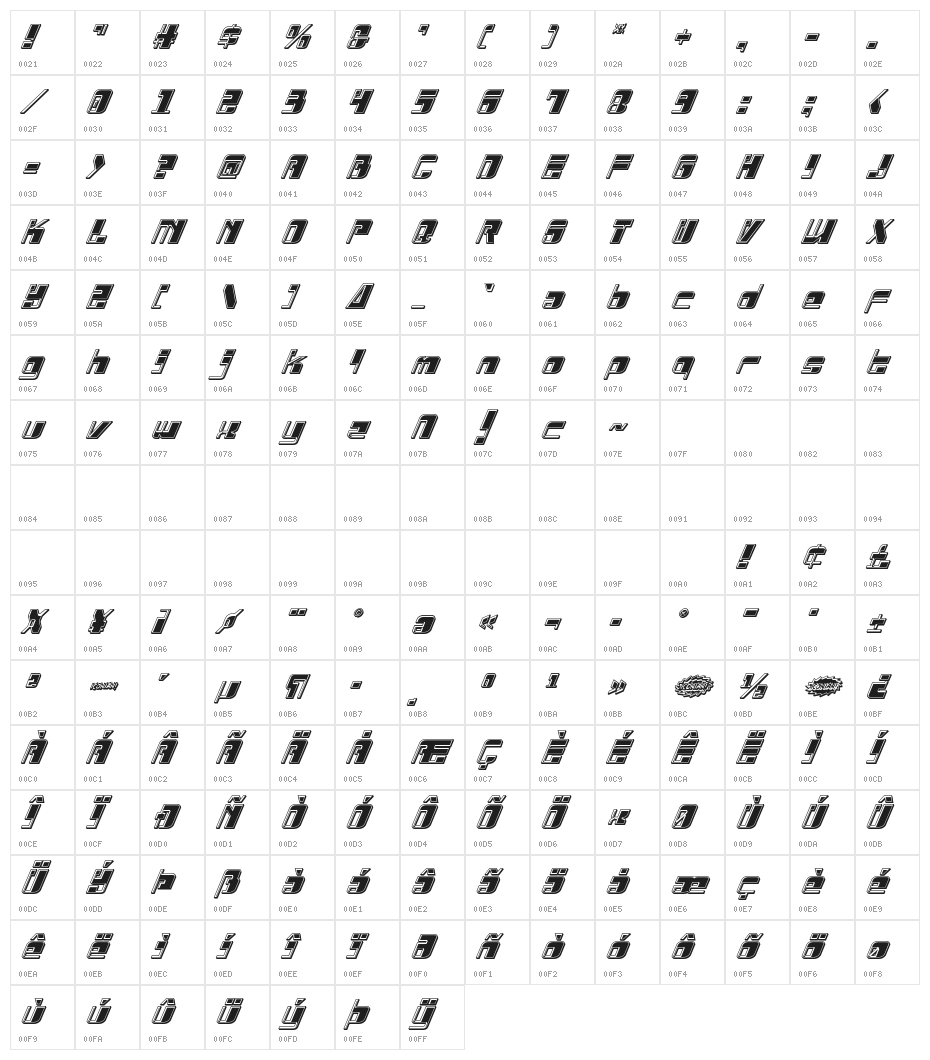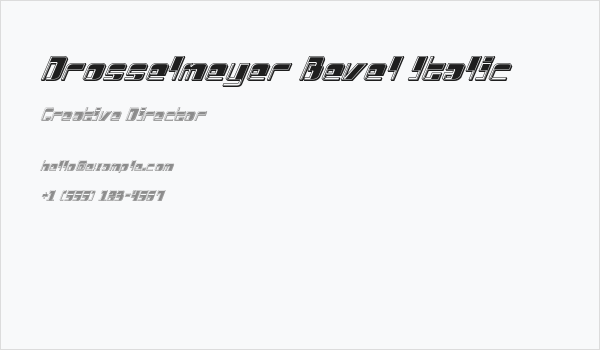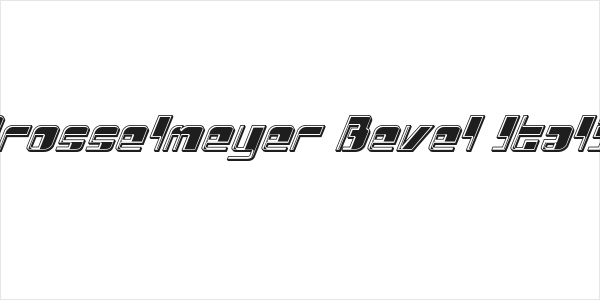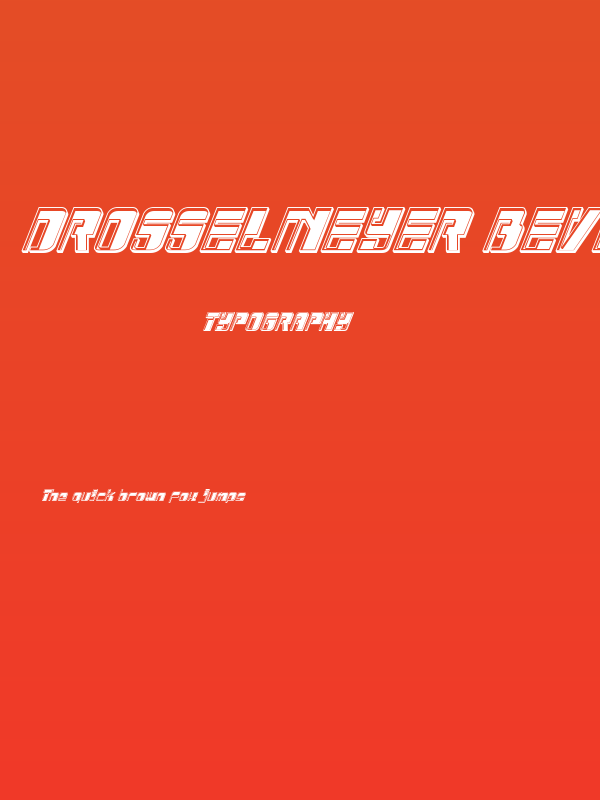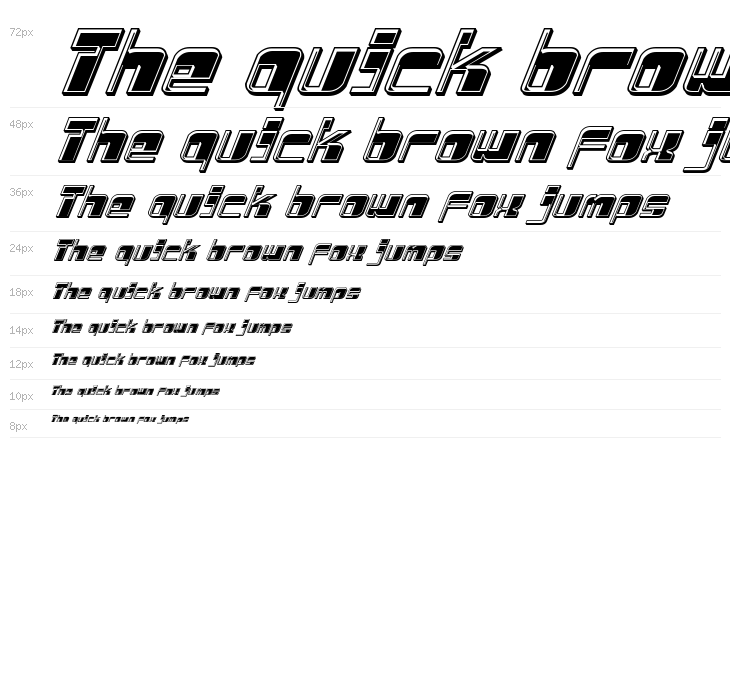
Drosselmeyer Bevel Italic Font
Drosselmeyer Bevel Italic Description
This font features a bold, italicized style with a distinctive beveled edge that gives it a three-dimensional appearance. The characters are designed with a strong geometric influence, showcasing sharp angles and clean lines. The uppercase and lowercase letters maintain a consistent style, with the lowercase slightly smaller in height but equally bold. Numbers and special characters follow the same design principles, ensuring uniformity across all glyphs. The font's unique beveled effect adds depth, making it stand out in any design. Its italic slant adds a dynamic and forward-moving feel, suitable for modern and edgy projects.
Proposed ProjectsIdeal for logos, headlines, posters, and any design requiring a modern, dynamic look.